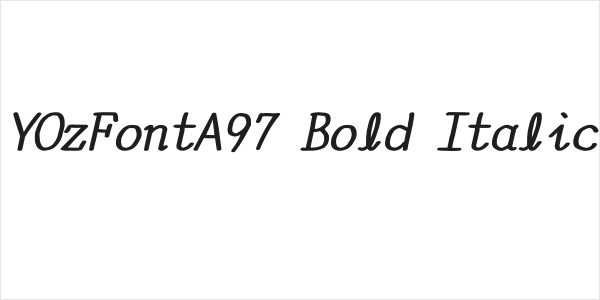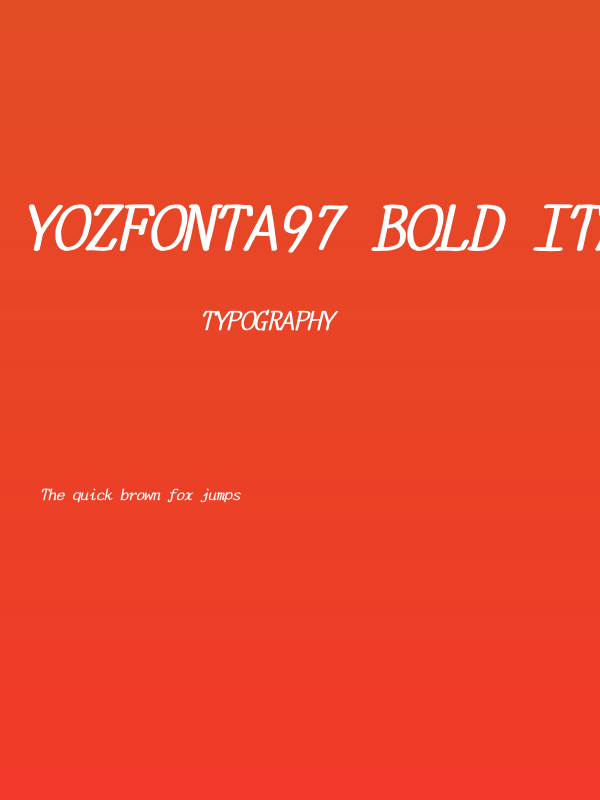
YOzFontA97 Bold Italic Font
YOzFontA97 Bold Italic Description
This font features a dynamic and elegant style with a distinct italic slant, giving it a sense of motion and fluidity. The bold weight adds emphasis and strength, making each character stand out with clarity. The uppercase letters are well-defined with a slight curvature, while the lowercase letters maintain a consistent flow, enhancing readability. The numerals are distinct and easy to distinguish, and the special characters are crafted to match the overall aesthetic. This font's unique style is suitable for projects that require a touch of sophistication and flair.